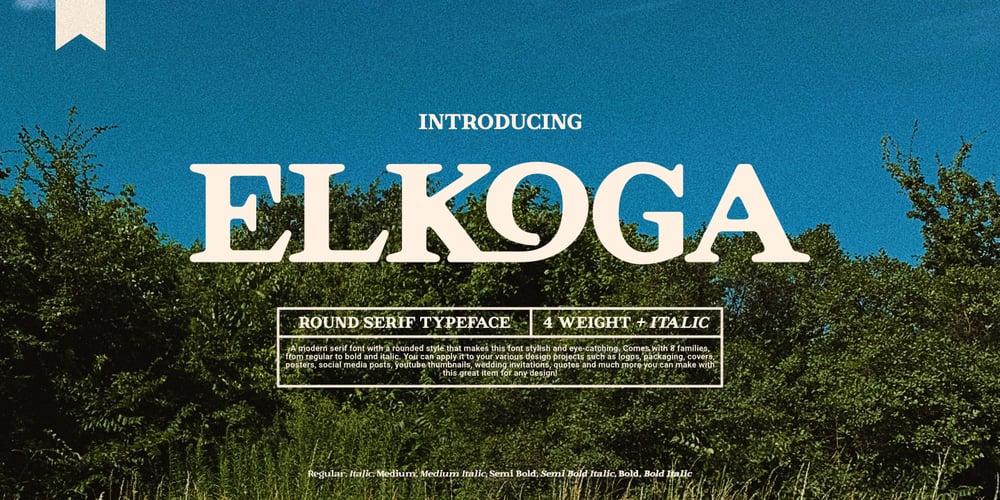
Elkoga Font Family was designed by Prio Nurokhim Aji and published by Prioritype. Elkoga contains 8 styles and family package options. IntroducingElkoga – Round Serif TypefaceA modern serif font with a rounded style that makes this font stylish and eye-catching. Comes with 8 families, from regular to bold and italic. You can apply it to your various design projects such as logos, packaging, covers, posters, social media posts, youtube thumbnails, wedding invitations, quotes and much more you can make with this great item for any design!Features:-Uppercase-Lowercase-Numeral-Punctuation-Multilingual-Opentype Features & PUA EncodedMultilingual contained:Afrikaans, Albanian, Asu, Basque, Bemba, Bena, Breton, Catalan, Chiga, Cornish, Danish, Dutch, English, Estonian, Faroese, Filipino, Finnish, French, Friulian, Galician, German, Gusii, Indonesian, Irish,Italian, Kabuverdianu, Kalenjin, Kinyarwanda, Luo, Luxembourgish, Luyia, Machame, Makhuwa-Meetto, Makonde, Malagasy, Manx, Morisyen, North Ndebele, Norwegian Bokmål, Norwegian Nynorsk, Nyankole, Oromo, Portuguese, Quechua, Romansh, Rombo, Rundi, Rwa, Samburu, Sango, Sangu, Scottish Gaelic, Sena, Shambala, Shona, Soga, Somali, Spanish, Swahili, Swedish, Swiss German, Taita, Teso, Uzbek (Latin), Volapük, Vunjo, Zulu.Note: Use a program that supports the Opentype features and the glyph panel is available, so you can see the various alternative characters available. Examples of programs such as Adobe Illustrator, Corel Draw or Affinity Designer.Thanks.